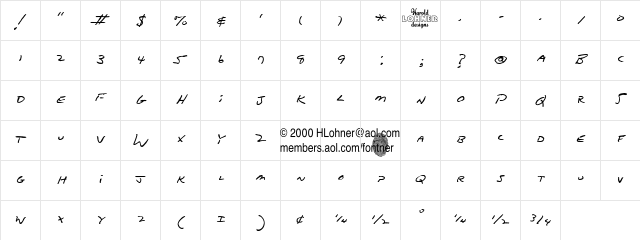
Dad's Recipe Regular Free Font
Dad's Recipe Regular
Design Context for Dad's Recipe
Dad's Recipe is a composed and adaptable typeface that performs quietly and consistently across a wide range of design contexts.